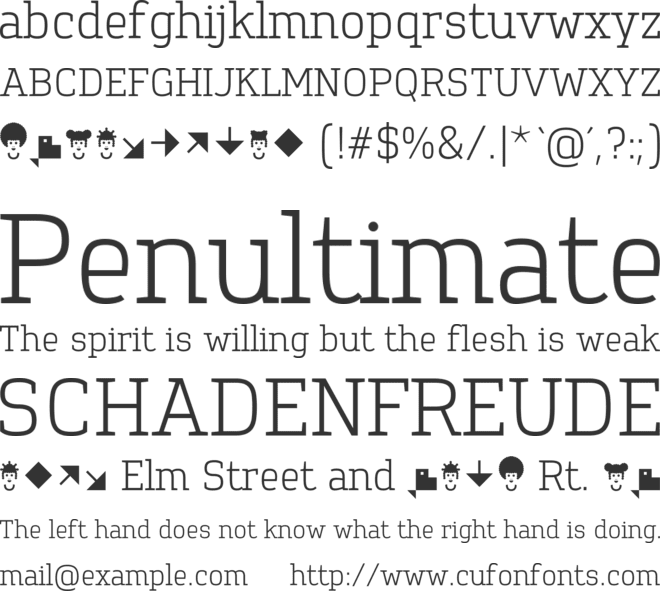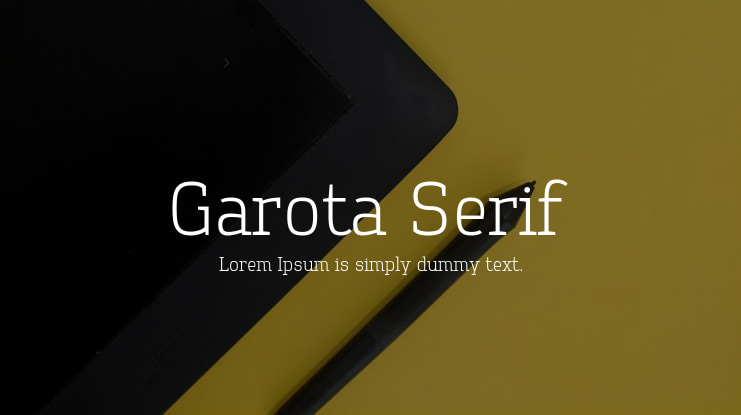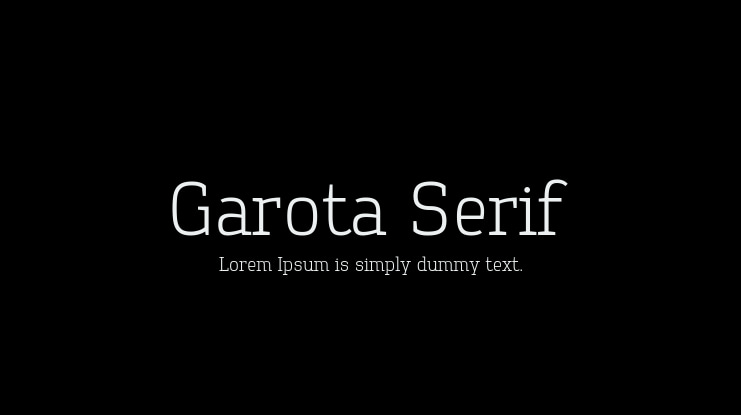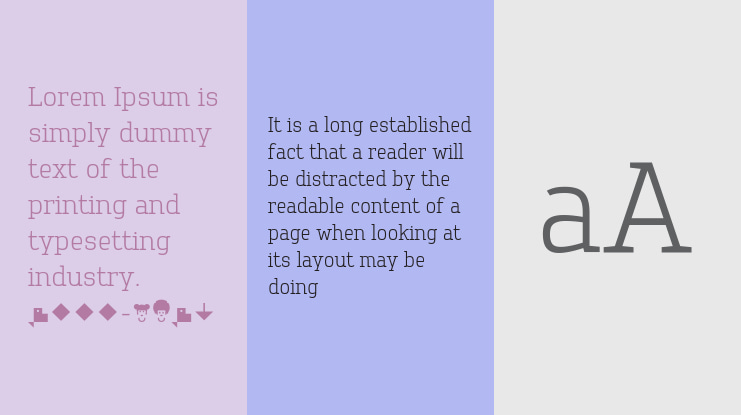
A new typeface family beautifully captures the essence of youth and freshness through its clean and elegant style. Inspired by organic shapes, this serif typeface merges soft curves with a slightly narrow proportion, offering a friendly and highly readable design. It strikes the perfect balance between sophistication and accessibility.
Each character in this typeface has been meticulously crafted to evoke a sense of lightness and fluidity, ideal for drawing readers in from the very first glance.
The typeface family consists of four weights—Light, Regular, Medium, and Bold—and three distinct styles—Roman, Italic, and Small Caps—totaling 12 fonts. This variety provides exceptional versatility and delivers a rich, consistent typographic experience that suits both editorial and advertising design needs.
Furthermore, Garota Serif includes advanced OpenType features that enhance its expressive capabilities. These features provide alternative letters and numbers, currency symbols, arrows, and dynamic fractions, empowering designers with a powerful tool for projects that necessitate a sophisticated touch to create unique and effective typographic compositions.